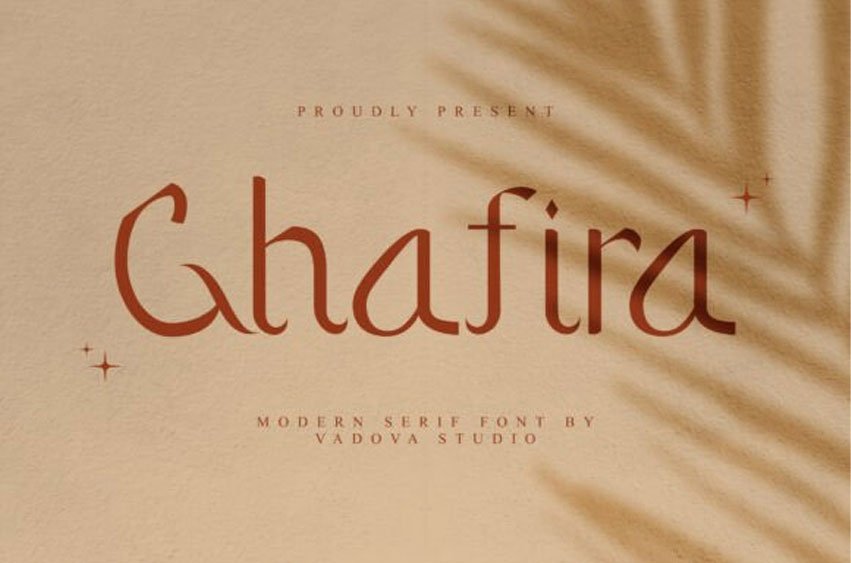
Ghafira Font
Ghafira Font presents a refined modern serif style with soft curves and subtle calligraphic influence, creating a graceful and expressive typographic voice.
The characters feature delicate stroke contrast, slightly flared terminals, and unique letterforms that bring a poetic and artistic feel. Designed for high-resolution use, fully scalable, and easy to integrate across print and digital projects without additional plugins.